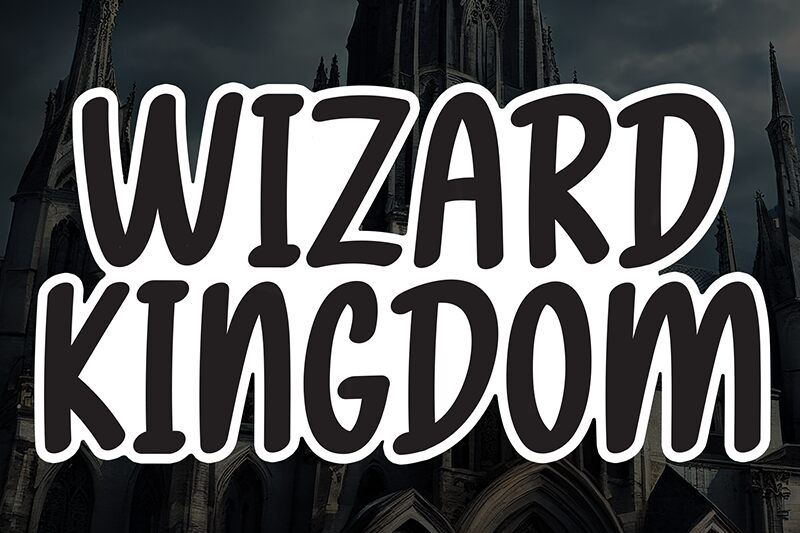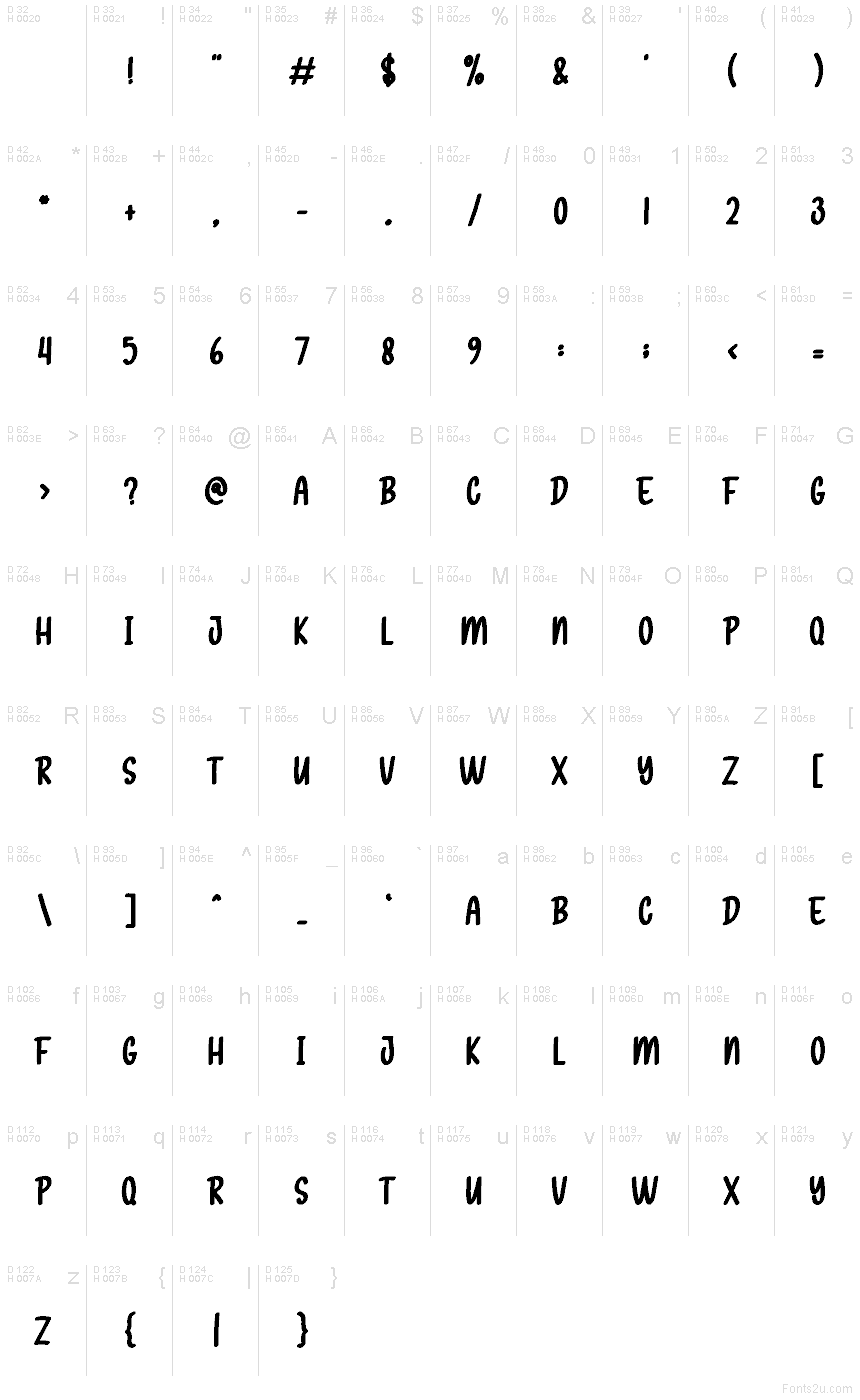
Wizard Kingdom
Wizard Kingdom font by Andi Moz is a free handwritten typeface that looks like it’s been inked with a chunky brush straight out of a spell book. The letters are tall, rounded, and slightly wobbly in a charming way, giving each word a bouncy, enchanted energy. Thick strokes and tight rhythm keep it bold and easy to read, even when the text gets long or busy with color and texture.
Using Wizard Kingdom, you can bring storybook magic to children’s book covers, birthday invitations, fantasy game logos, posters, stickers, and playful branding. This free font shines when you set it large and let the inky curves breathe, then pair it with a clean sans-serif for body text to balance the whimsy.